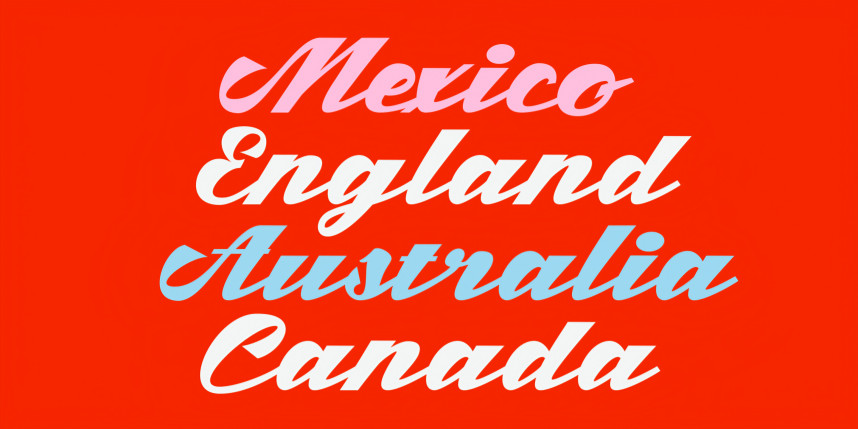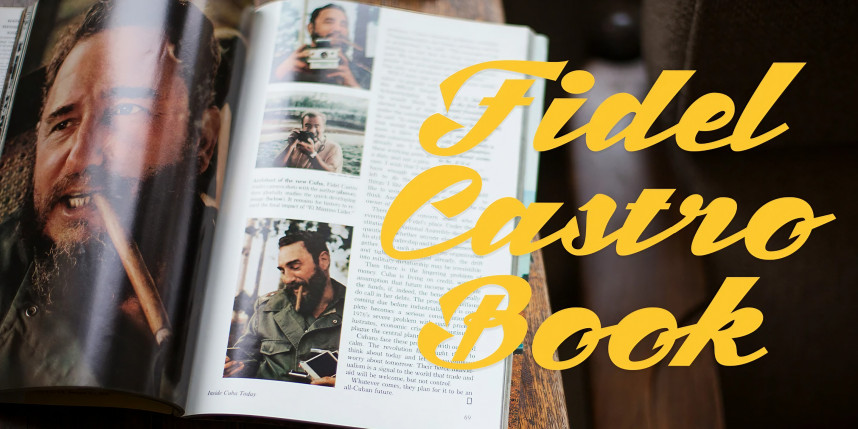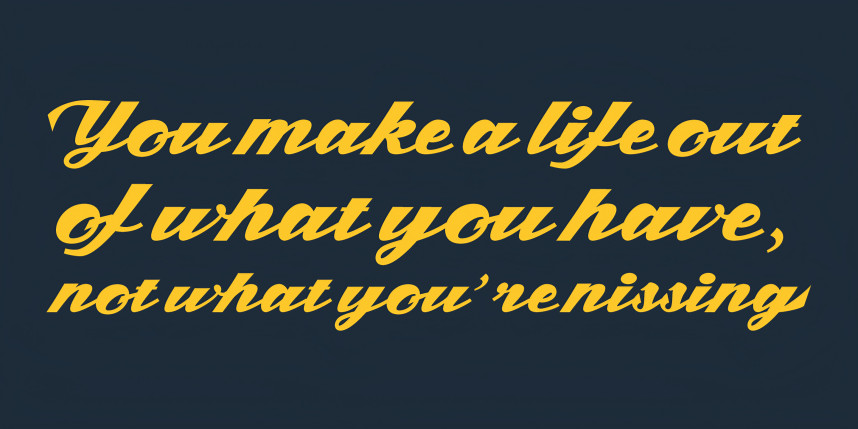
Mantel Font is a handcrafted font that exudes a sense of personality and character. Its flowing curves and confident strokes evoke a vintage charm, reminiscent of classic signage and handwritten lettering. The font’s bold weight gives it a strong presence, making it perfect for headlines, logos, and any design that demands attention. Whether used for a retro-inspired brand or a modern project seeking a touch of vintage flair, Mantel adds a unique and stylish touch.
Mantel Font